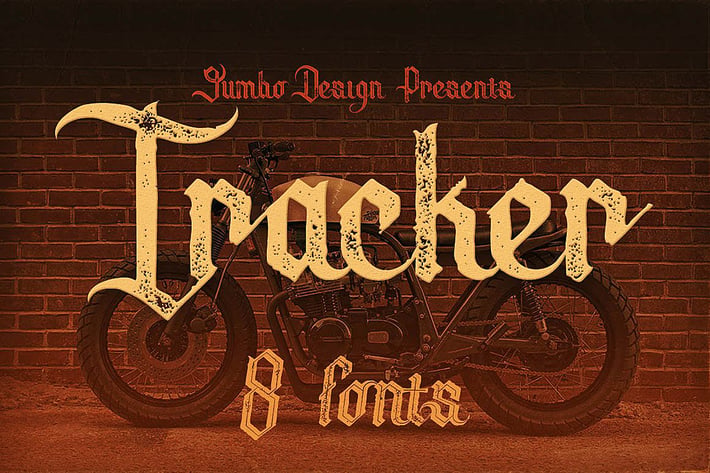
Tracker - Vintage Style Font
Unique retro or vintage style custom font with 8 styles: regular and grunge, inline and inline grunge, italic and italic grunge, italic inline and italic inline grunge